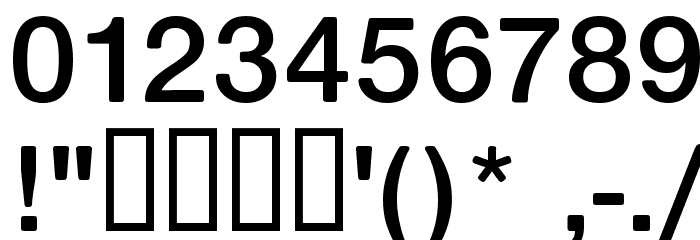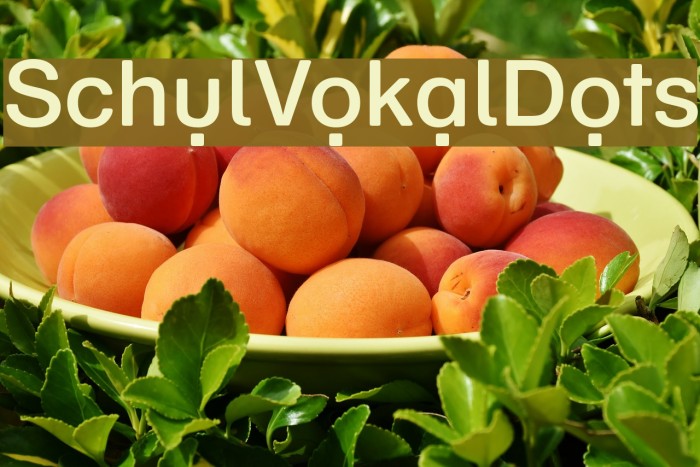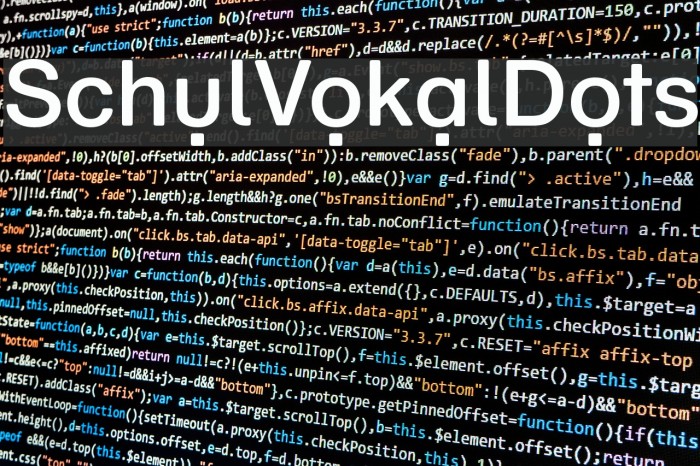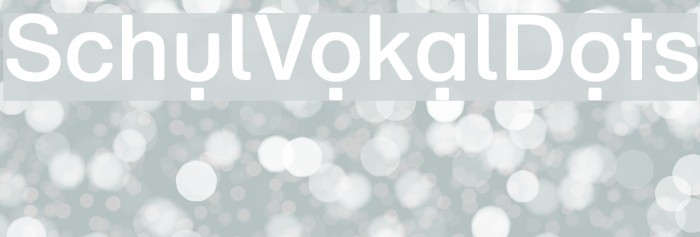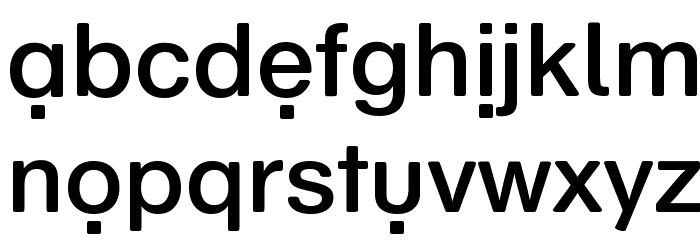
SchulVokalDots Font
This font features a clean, modern sans-serif style with a distinctive dotted accent on certain characters, adding a unique visual element. The characters are well-proportioned and maintain a consistent stroke width, contributing to a balanced and harmonious appearance. The uppercase and lowercase letters are clearly distinguishable, with rounded edges that soften the overall look. The numerals are straightforward and easy to read, making them suitable for various applications. Special characters are included, maintaining the same stylistic approach, ensuring versatility in design projects.
A modern sans-serif font with dotted accents and rounded edges.
• Proposed Projects: Ideal for educational materials, modern branding, digital interfaces, and children's books.